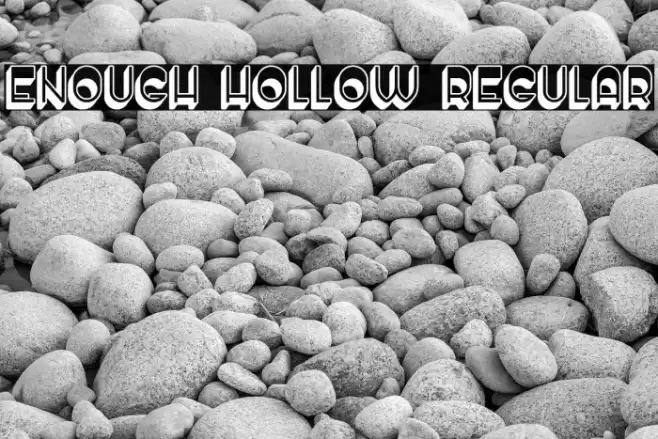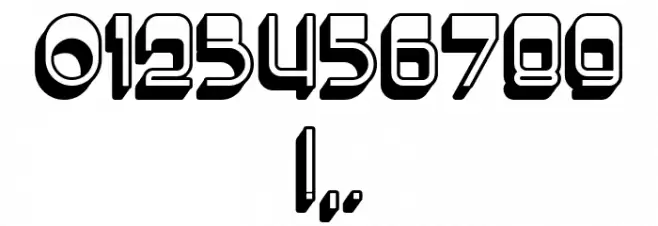
Enough Hollow Regular Font
Enough Hollow Regular Description
This font features a bold, hollow design with a three-dimensional effect, creating a striking and modern appearance. The characters are outlined with a thick black border, giving them a strong presence on the page. The interior of each letter is hollow, allowing the background to show through, which adds a unique visual interest. The font maintains a consistent width across all characters, ensuring uniformity and balance. Its geometric shapes and clean lines contribute to a futuristic and dynamic style, making it suitable for eye-catching designs.
A bold, hollow, 3D-effect font with a modern and dynamic style from Uncategorized fonts.